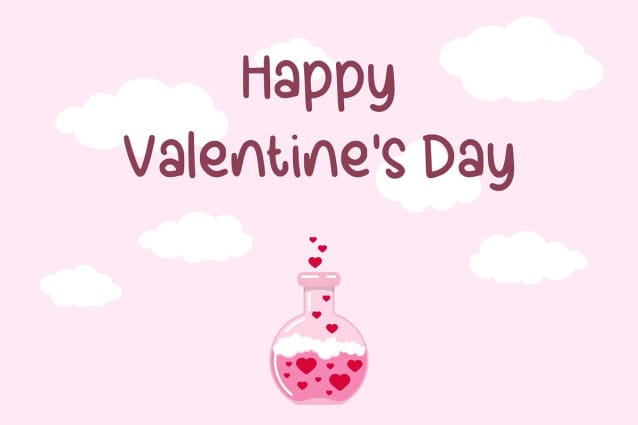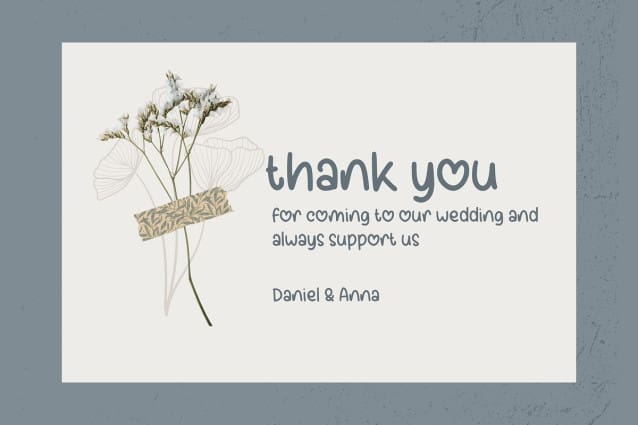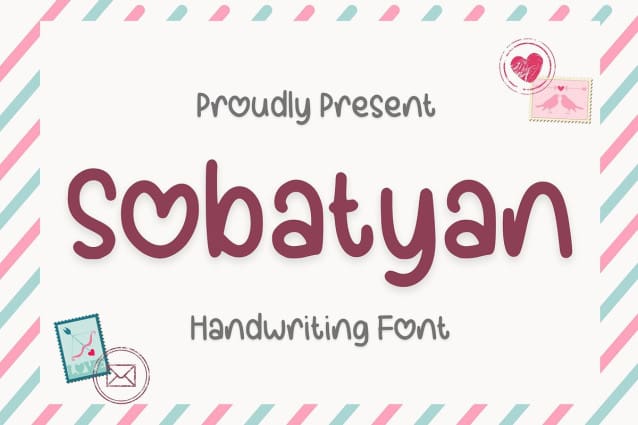
Sobatyan Handwriting Font
Sobatyan Handwriting Font is a beautiful and elegant font that is perfect for a wide range of design projects. This font features a sophisticated hand-written style that has a romantic and refined feel, making it ideal for use in wedding invitations, love letters, greeting cards, and other creative projects.
The Sobatyan Handwriting Font has a soft and flowing look, with letters that are beautifully formed and have a slightly whimsical feel. The font includes a full set of upper and lowercase letters, as well as numbers and punctuation, making it a versatile and practical choice for designers.
Overall, Sobatyan Handwriting Font is a romantic and sophisticated font that brings a touch of elegance and beauty to any design project. Whether you’re designing a wedding invitation, creating a love letter, or working on a logo, this font is sure to make your project stand out.